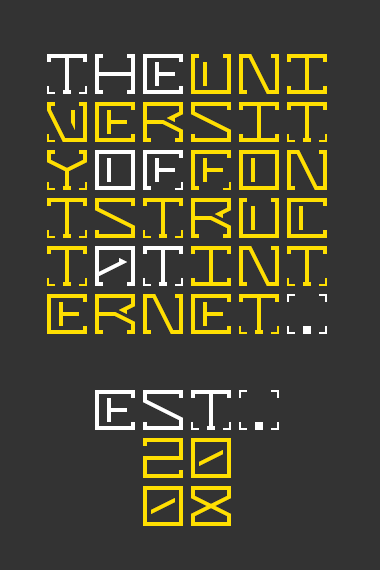
fs Squangular Square
thalamic
Square
Hmmm. Verrrrry interesting - and good :)
Very creative family!
Looks like there is some extra space after the Q.